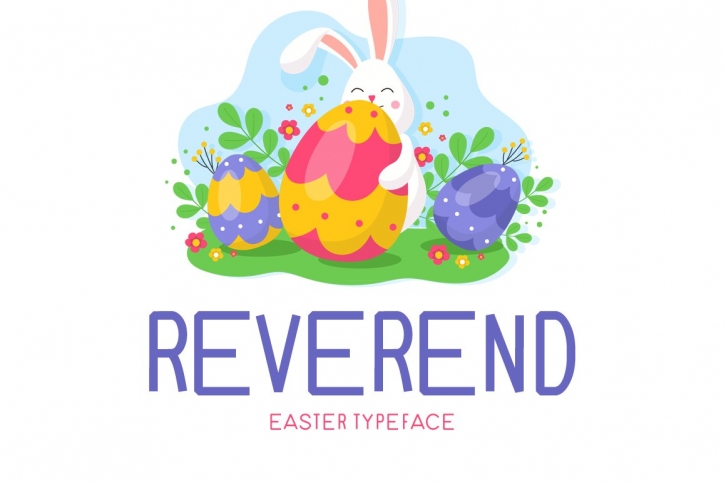
Reverend is a great font that was designed by Seemly Fonts. Imagine the amount of combinations you can create using this font! The archive is 8.79 MB and it was released on March 6, 2020. Reverend looks beautiful on wedding invitations, greeting cards, logos, posters, labels, t-shirt designs, logos, business cards and is perfect for use in ink or watercolor works, fashion, magazines, packaging and food menus, children's books and more!